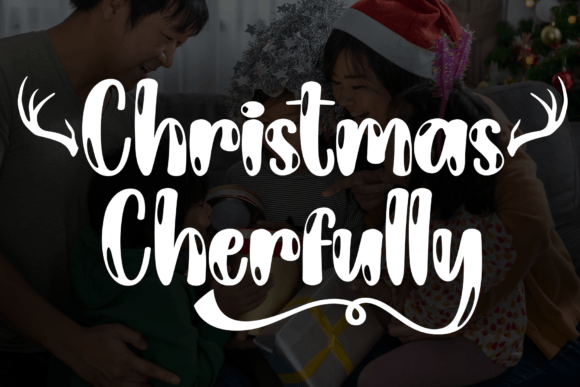
Prepare your designs for the jolliest season with Christmas Cheerfully Font, a festive display font that will ignite the holiday spirit in all your creations! Its charmingly playful characters will dance across your screens, bringing an irresistible blend of joy and cheer to your projects.
Christmas Cheerfully Font is the perfect choice for adding a touch of whimsy and warmth to your Christmas-themed designs. Whether you're creating invitations, posters, or social media graphics, this font will effortlessly capture the magic and excitement of the holiday season. Its unique and eye-catching style will make your designs stand out from the crowd, leaving a lasting impression on your audience.
Immerse yourself in the festive spirit and let Christmas Cheerfully Font transform your designs into works of art. Its versatility extends beyond the holiday season, making it an excellent choice for fashion websites, branding projects, and any design that calls for a touch of playfulness.
Don't miss out on this opportunity to add a touch of Christmas cheer to your creative projects. Download Christmas Cheerfully Font today and let the festive vibes flow through your designs!